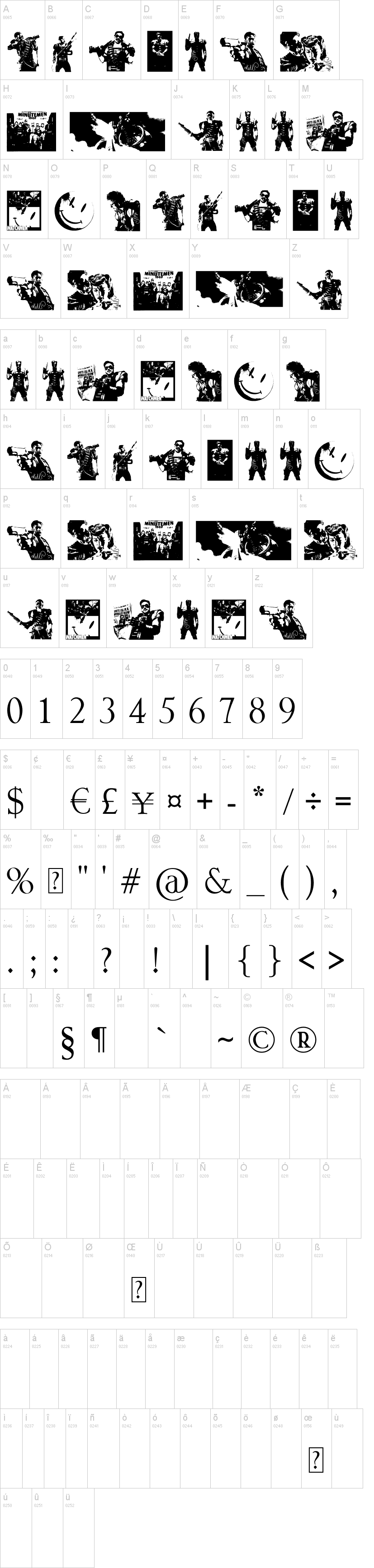
Note of the authortoo bad man! this is one of the most important dingbats every made! so, the comedian it's my favorite hero, this font it's very heavy! obviously by me, the great Skulls! one of the most important dingbats designer